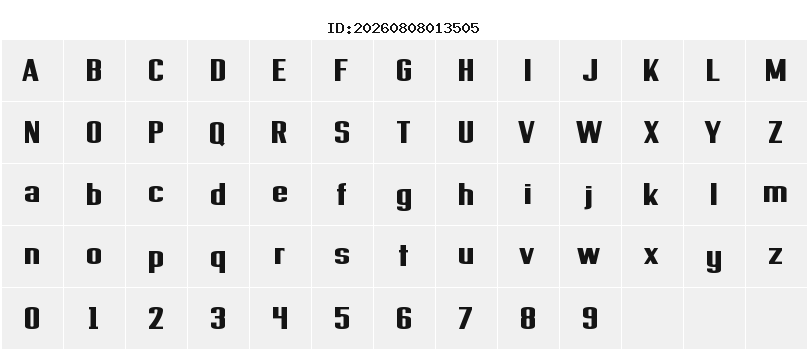
Provisionary.otf
Provisionary Preview
• Font Name: Provisionary
• Designer: Andrew McCluskey
About Provisionary.otf
Provisionary.otf is a modern, elegant sans-serif font designed for ultimate readability and visual harmony. Perfect for branding, headlines, web design, and print materials.